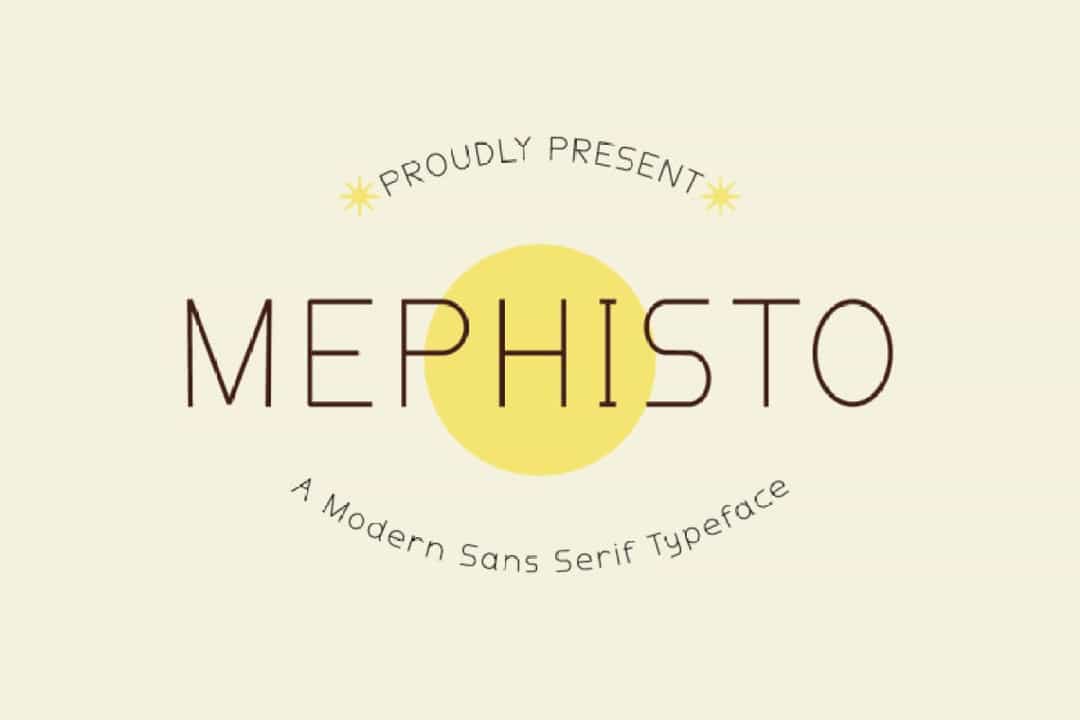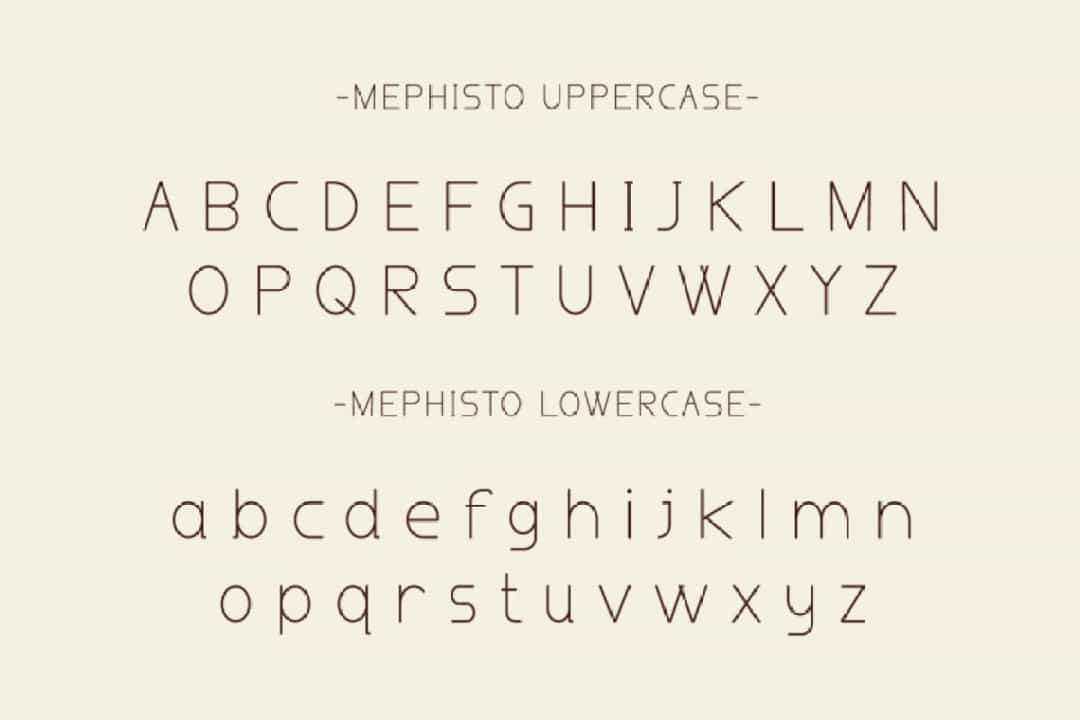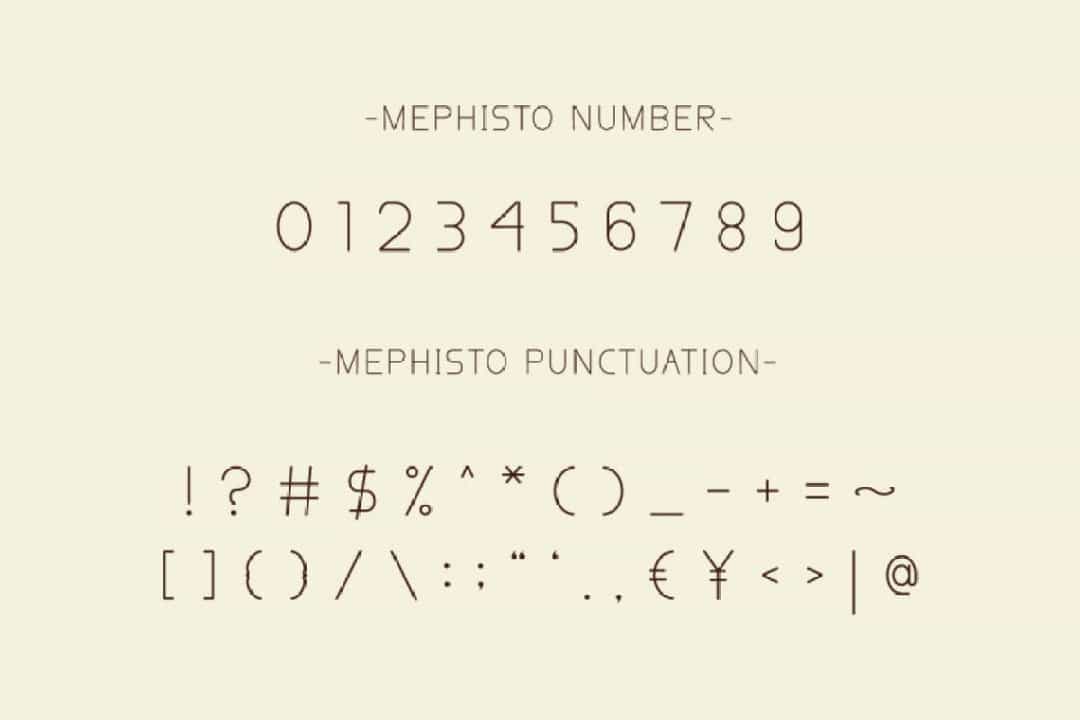
Mephisto is an exquisite take on modern sans serif font, making it perfect for use in logos, business cards, watermarks, cards and invitations as well as social media posts.